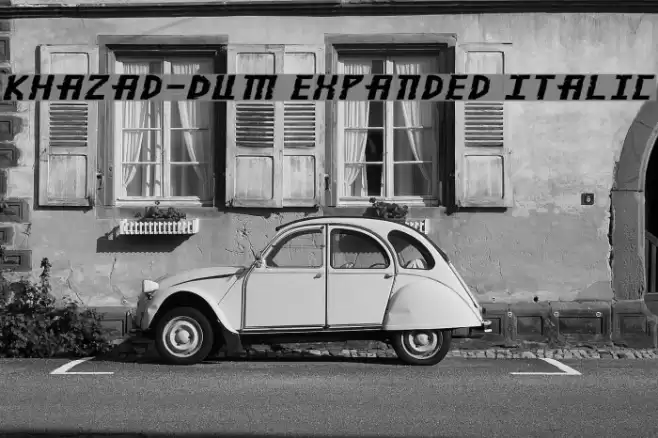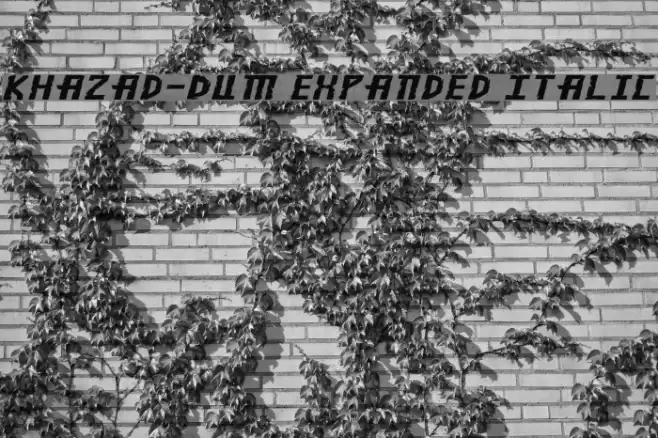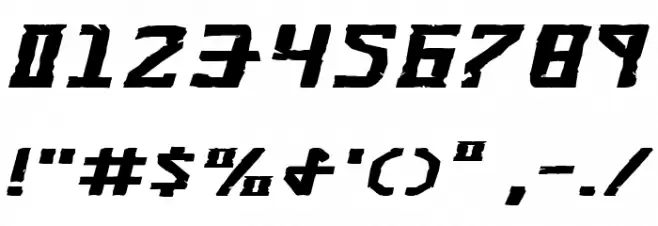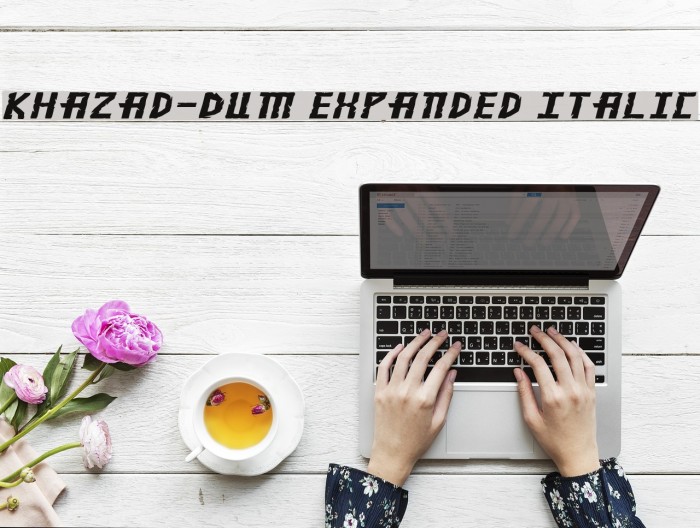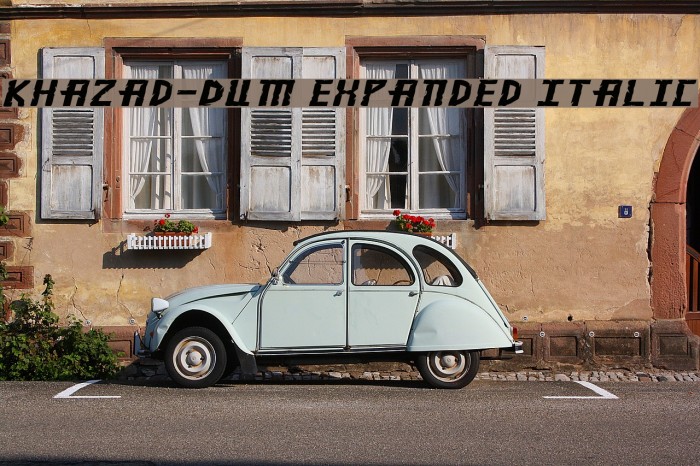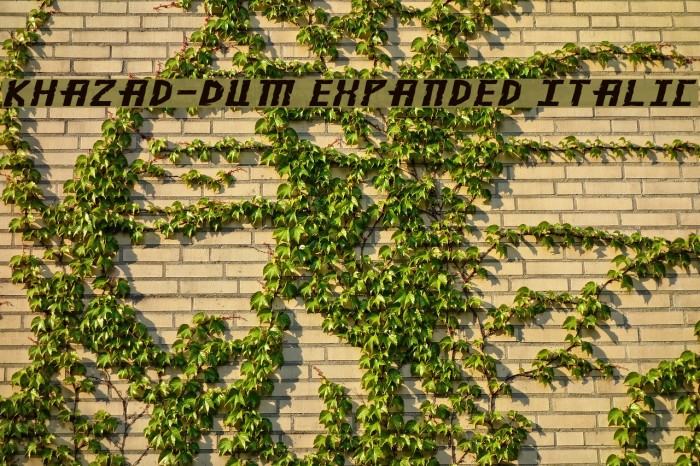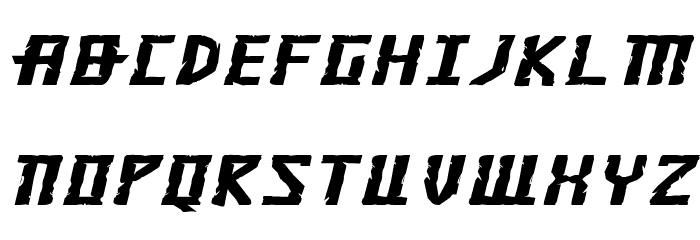
Khazad-Dum Expanded Italic Font
Khazad-Dum Expanded Italic Description
This font exhibits a bold and angular design, characterized by sharp edges and a dynamic, italicized slant. The expanded width gives it a commanding presence, making it ideal for attention-grabbing headlines. Each letter is distinct with a geometric flair, creating a sense of movement and energy. The uppercase and lowercase letters maintain a consistent style, while the numerals and special characters complement the overall aesthetic. The font's unique style is reminiscent of a modern, fantasy-inspired theme, suitable for creative and adventurous projects.
Bold, angular, and italicized with an expanded width, perfect for dynamic headlines from Uncategorized fonts.
- Proposed Projects: Ideal for fantasy-themed posters, video game titles, book covers, and branding that requires a bold statement.
- Overall Style: Modern, Fantasy